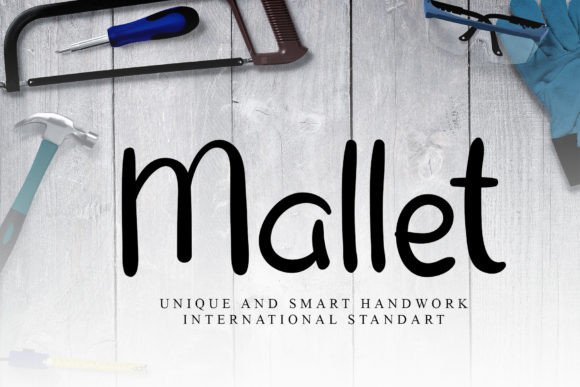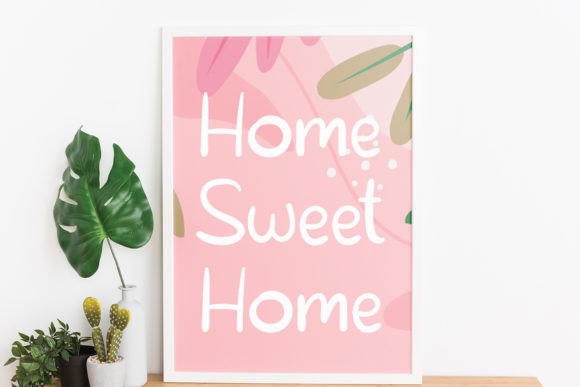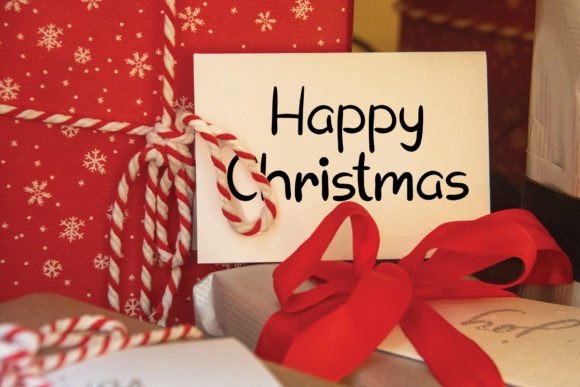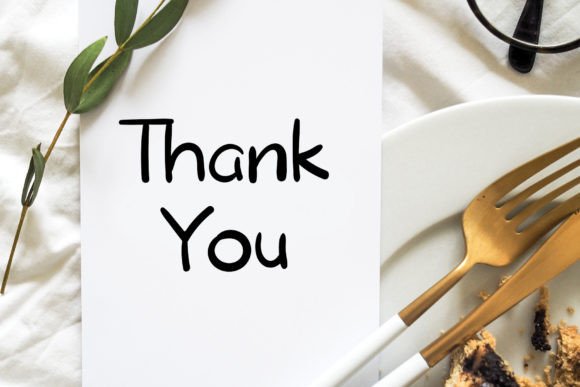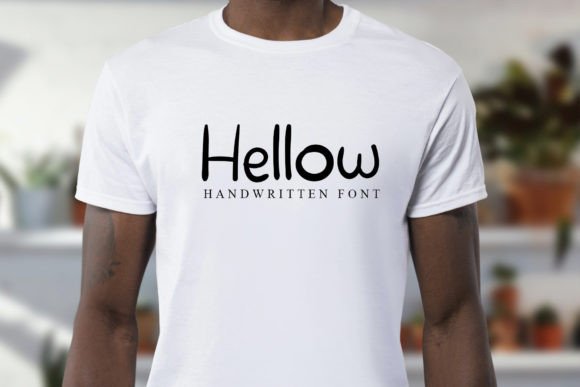
Mallet Font
✍️ About Mallet Font
Mallet is a distinctive and graceful handwritten font crafted to elevate your most meaningful designs. Its refined strokes and naturally varied baseline give it a charming handwritten look while maintaining elegance and legibility. Whether you’re working on wedding invitations, branding, or digital content, Mallet offers a timeless aesthetic that fits effortlessly into both classic and modern projects.
The font was thoughtfully created to blend the organic movement of handwritten script with the professional finish required for high-end design. Each letter flows beautifully, mimicking real handwriting with smooth, well-balanced curves. Mallet adds personality and warmth without sacrificing clarity, making it perfect for a wide variety of visual content.
🎨 Ideal Uses for Mallet Font
Mallet is incredibly versatile. It’s suitable for a wide range of design contexts—formal, romantic, playful, or artistic. This makes it a favorite among graphic designers, entrepreneurs, event planners, and creatives alike.
Best suited for:
• Wedding Invitations & Save-the-Date Cards
• Greeting Cards & Thank You Notes
• Elegant Logos & Brand Identity
• Billboards, Posters & Event Promotions
• Fashion & Beauty Branding
• Packaging & Product Labels
• Business Cards & Stationery
• Quotes, Social Media Posts & Blog Graphics
Whether you’re designing for print or digital, Mallet will deliver a polished, emotional, and impactful result.
✨ Font Features
• Handwritten script with natural curves
• Varied baseline for dynamic rhythm
• Uppercase & lowercase characters
• Standard punctuation & numerals
• Multilingual character support
• PUA encoded – full access to alternate characters and glyphs
Every glyph in Mallet is designed to ensure excellent legibility while still offering a custom, handcrafted look.
💡 Why Choose Mallet?
Choosing the right font can make or break a design, and Mallet delivers the perfect balance between authenticity and professionalism. It gives your work an elegant and human touch—ideal for designs that aim to connect emotionally with viewers.
If you’re looking to infuse your visuals with sophistication, creativity, and style, Mallet is the font that will help your ideas shine. From upscale events to personal projects, this font adapts seamlessly to any setting, enhancing your message with effortless charm.
Whether you’re a brand owner, designer, blogger, or crafter, Mallet will quickly become one of your most valuable assets in your type library.